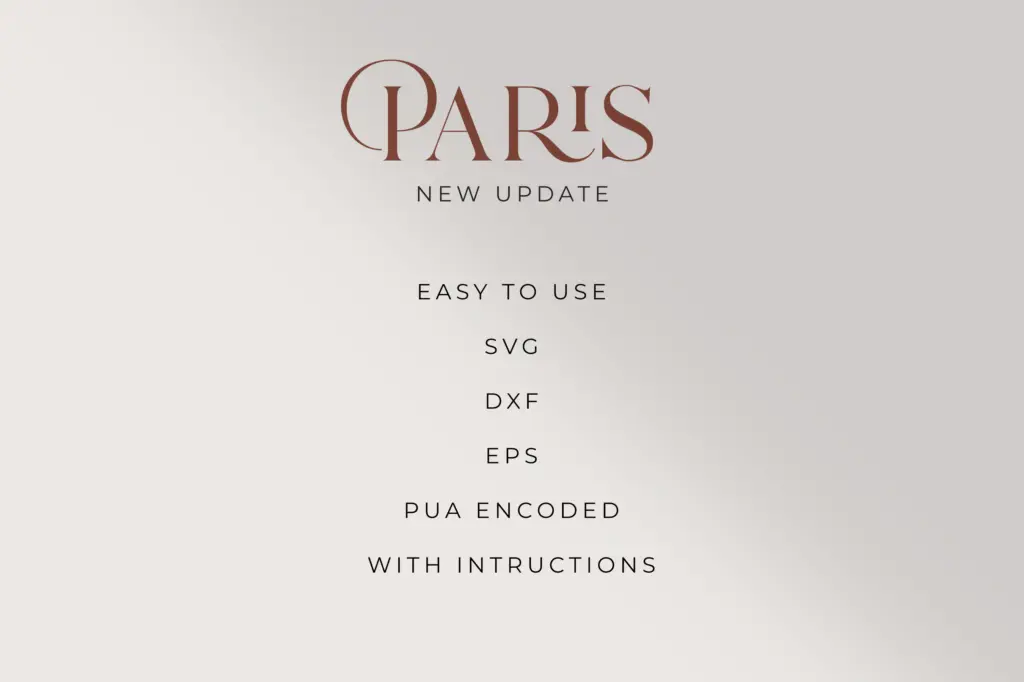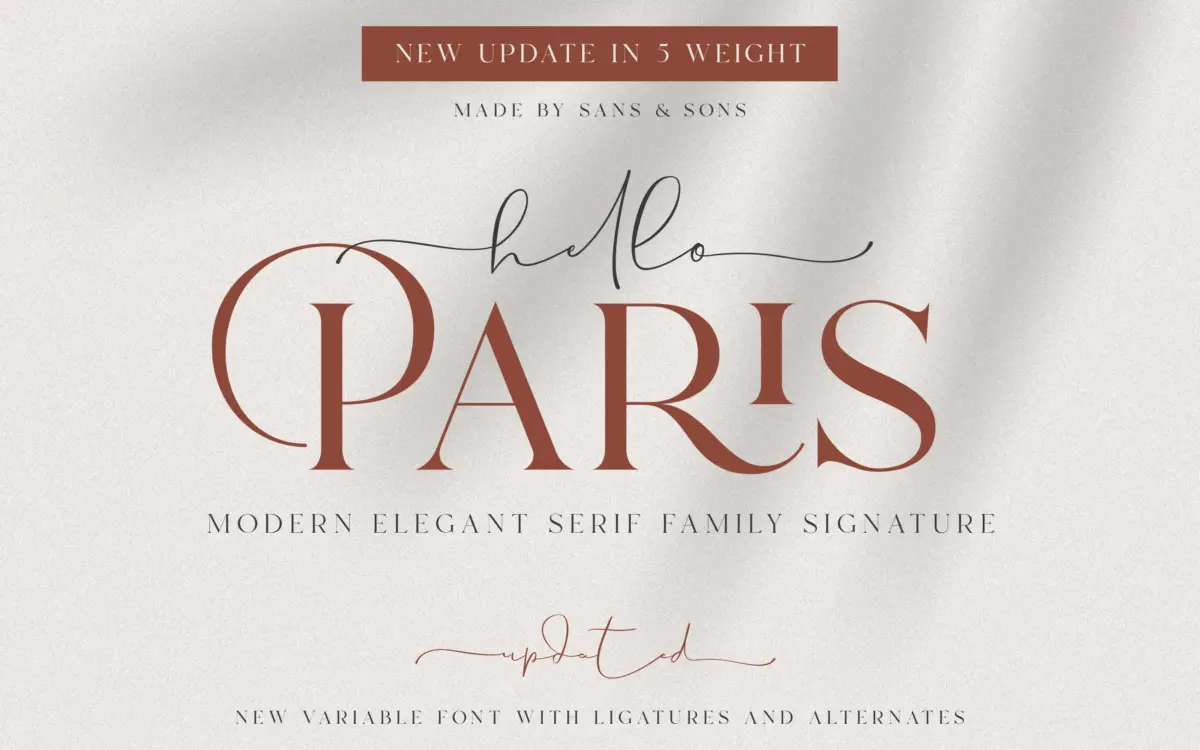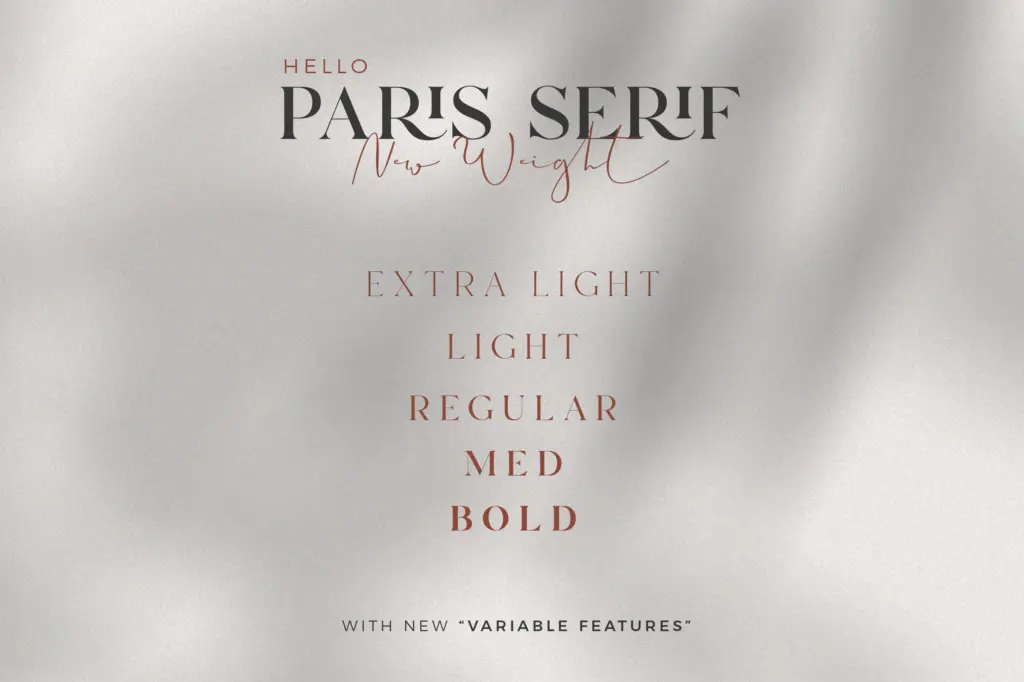
The serif half is the one most people come for. It is an all-caps display serif with a hidden second mode: the Shift key turns plain capitals into long, looping swash capitals.
Hello Paris specimen and verified specs
- Styles: 2 (Script, Serif)
- Glyphs: 176
- Language support: Basic Latin (English)
- OpenType features: standard ligatures, kerning
Two ways to type with Hello Paris Serif
The first thing to know about this font is how the keyboard behaves. In the Serif file we rendered, the lowercase keys give clean, plain capitals, and the uppercase keys give decorated swash capitals. Type “Hello Paris” with normal capitalisation and you get what the specimen above shows: a swash H whose tail sweeps back under the word, a swash P whose bowl loops up over its neighbour, and plain letters everywhere else.
That makes the font easy to control. Type a whole name in lowercase for a calm, classical line, then add a single Shift-key capital where you want a flourish. Typing everything in capitals is the mistake to avoid: every letter becomes a swash, and the tails collide.
Design and character
The plain capitals have high contrast: firm vertical stems, hairline horizontals and very small, sharp serifs. O and Q are close to perfect circles, the Q’s tail is a long hairline, and the M is wide and stately. The overall effect is light and airy, closer to engraved stationery than to a newspaper headline.
The swash set is where the personality is. Most swash capitals add a long hairline stroke: a tail that sweeps under the baseline or a loop that enters from the left. A few, such as the V, reshape the whole letter into one sweeping curve. Because those hairlines are thin, give swash letters room and size: they look best at large display sizes, printed cleanly or shown on a sharp screen.
- Not variable: the listing calls it a “Variable Duo” and the designer describes a weight slider in his interview, but the files we have are standard static fonts with no variable axis. If the slider matters to you, ask the seller which files the current download includes.
- 176 glyphs in the Serif: two sets of capitals, figures and punctuation.
- Script: the publisher describes it as a signature-style script with upper and lowercase, over 50 ligatures and over 50 alternates. We did not render the script for this page.
Language support and OpenType features
The Serif covers basic Latin only. We found no accented letters, so it cannot set French words such as “café” or “élégance” correctly, which is worth knowing for a font with Paris in its name. English names, dates and short phrases are fine.
Two OpenType features are built in. Kerning evens out the spacing between letter pairs and works almost everywhere. Standard ligatures swap certain letter pairs for a joined design automatically in apps that support them, such as Illustrator, InDesign, Photoshop, Affinity and Figma.
The font also maps 18 characters to the Private Use Area (PUA). These are extra glyphs with their own code points, so apps without OpenType support can still reach them. In Canva or Cricut Design Space, open Character Map (Windows) or Font Book (Mac), copy the character and paste it into your design. Since the swash capitals already sit on the uppercase keys, most Canva and Cricut users can get the decorative look without that step.
How do I get the swash letters?
Hold Shift. In the Serif, uppercase keys give swash capitals and lowercase keys give plain capitals.
Is Hello Paris a variable font?
The listing and designer say so, but the files we checked are static OTF and TTF fonts.